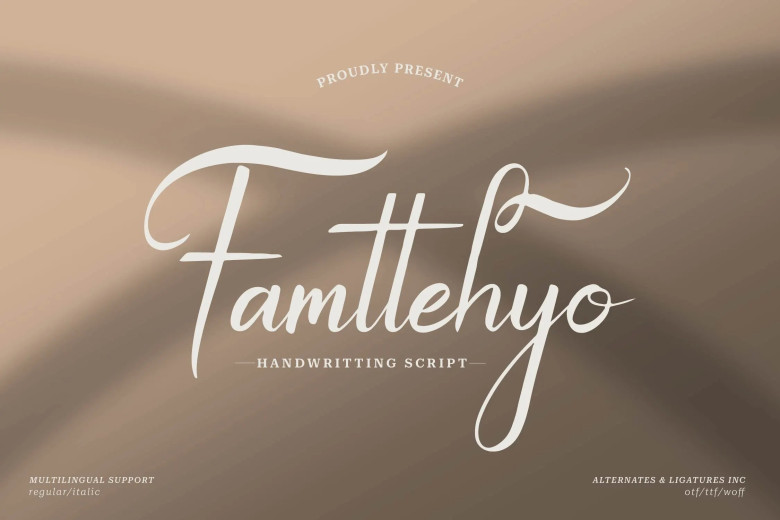
Famtehyo Font
Famtehyo Font is provided as a handwritten script by Gracetypestudio, and it is compatible on almost any projects you come up with. Logo, branding project, homeware design, product packaging, mug, quote, poster, shopping bag, T-shirt, book cover, name card, invitation card, greeting cards, label, photography, watermark, photography, special event, and all of your other beautiful projects that need a script preferences a lofty one is Thank you so much for your trust in a family-based style of service and kind help.
Famtehyo Handwritten Script Font